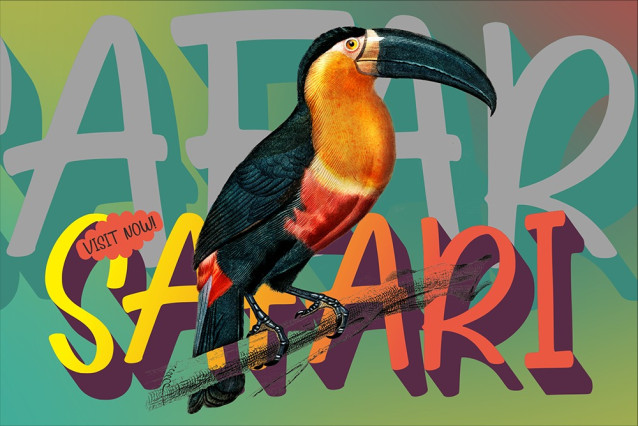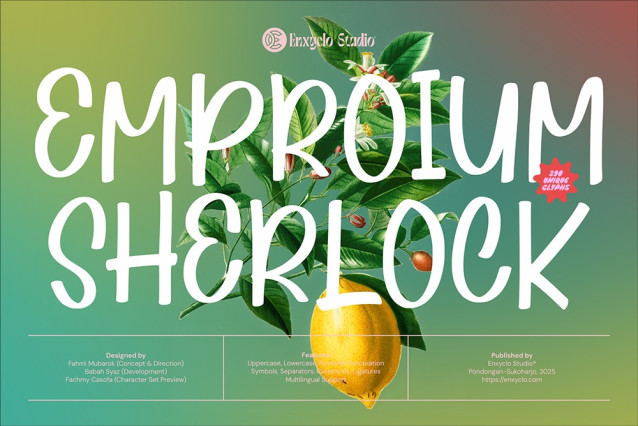
Emporium Sherlock Font
Emporium Sherlock Font is a bold, quirky display font with a cheerful handwritten touch. Its rounded brushstroke construction and spontaneous curves give it a fun, youthful vibe—perfect for designs that aim to be both approachable and eye-catching. This font is packed with personality and flexibility. From packaging and posters to brand identities, Emporium Sherlock brings an instant sense of energy and joy to your creative work.